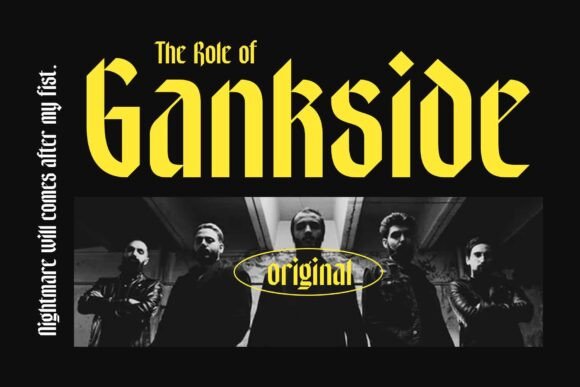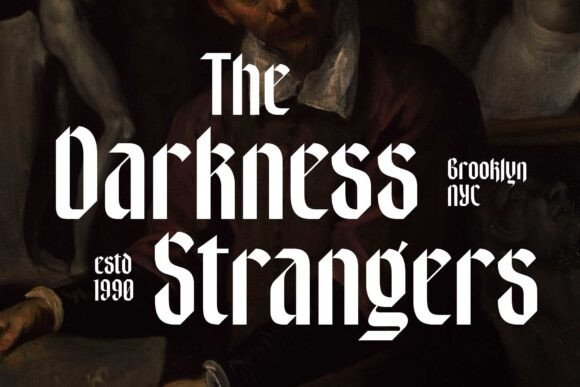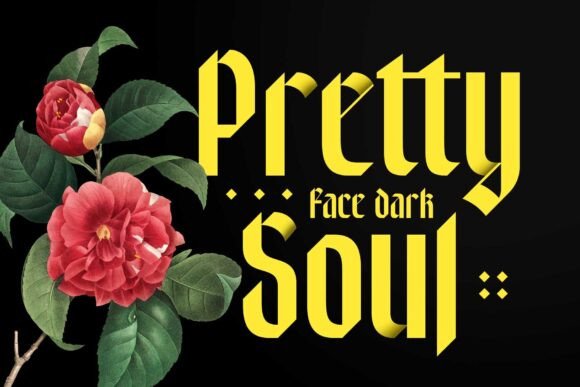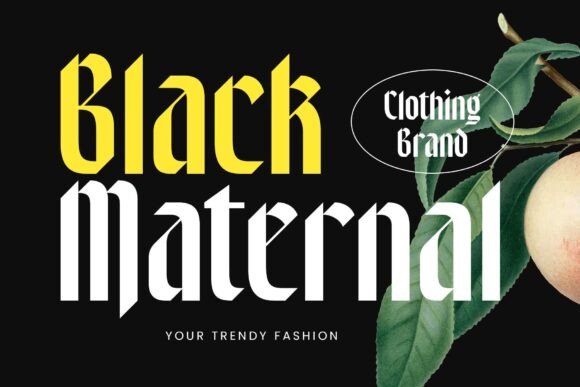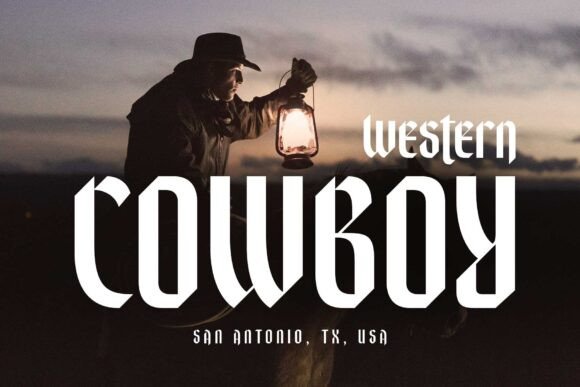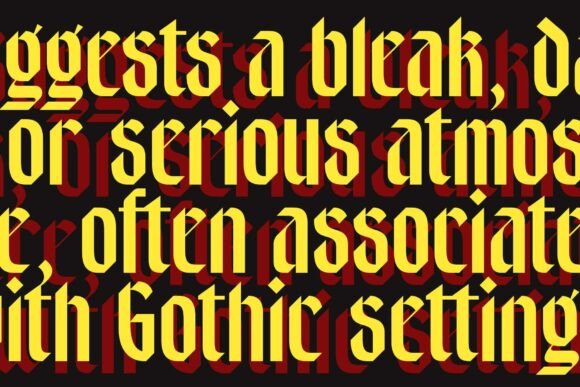
Introduction to Nightwoe Font
Nightwoe is a modern blackletter typeface.
Inspired by medieval Gothic style, designed with elegant strokes and minimalist letterforms, this font looks unique and versatile to use for many purposes Equipped with stylistic alternates that you can give a more typographic touch to your design, such as logo, logotype, poster, apparel, flyer, quotes, books, and many more.
Key Features of Nightwoe Font